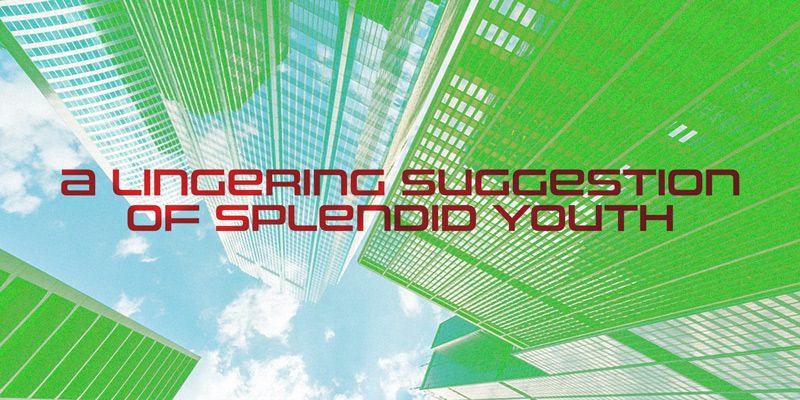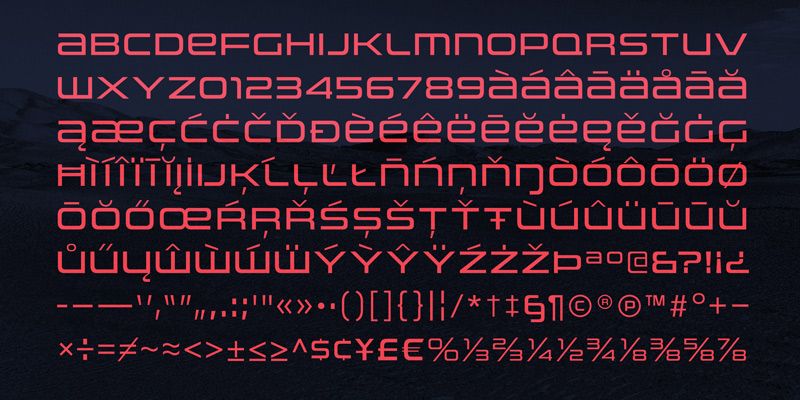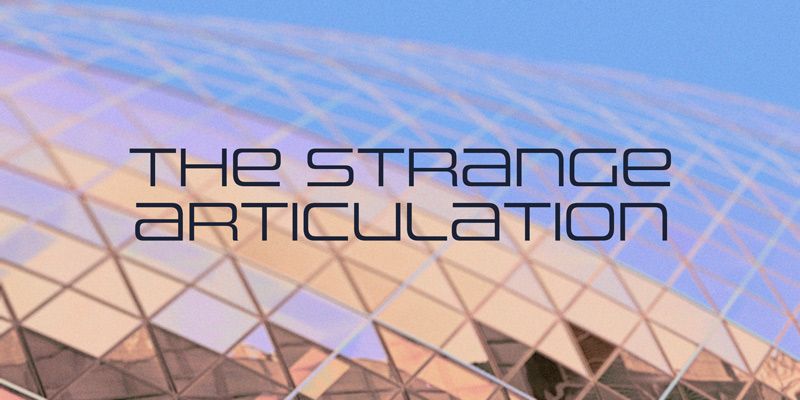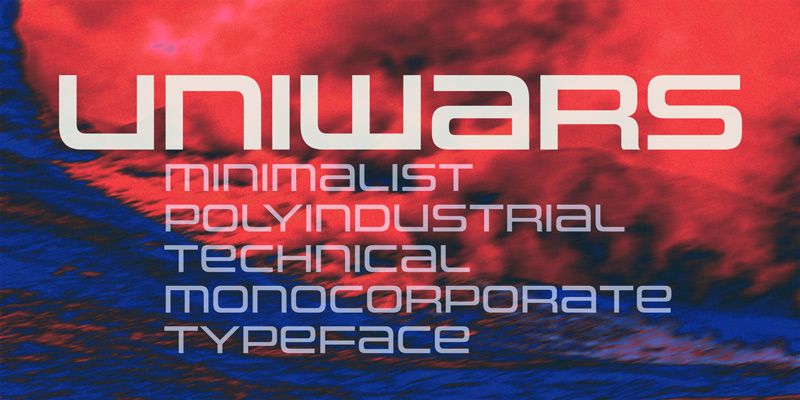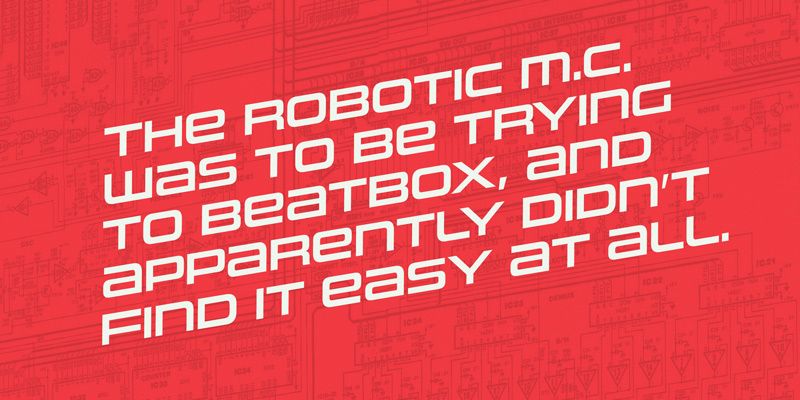
Uniwars is an outstretched, angular headliner inspired by twentieth-century Japanese industrial logotypes. Its orthogonal construction makes short words feel like marks drawn across an engineered surface, with width built into the letters rather than added through tracking. That character suits bicycle tubes, robotics housings, electronics, vehicle graphics, and science-fiction titles grounded in hardware rather than ornament. Light, Regular, and SemiBold each have an italic, giving a concise product system room to change emphasis. Use Uniwars for model names, team identities, and prominent display lines where its long, low silhouette can be seen.